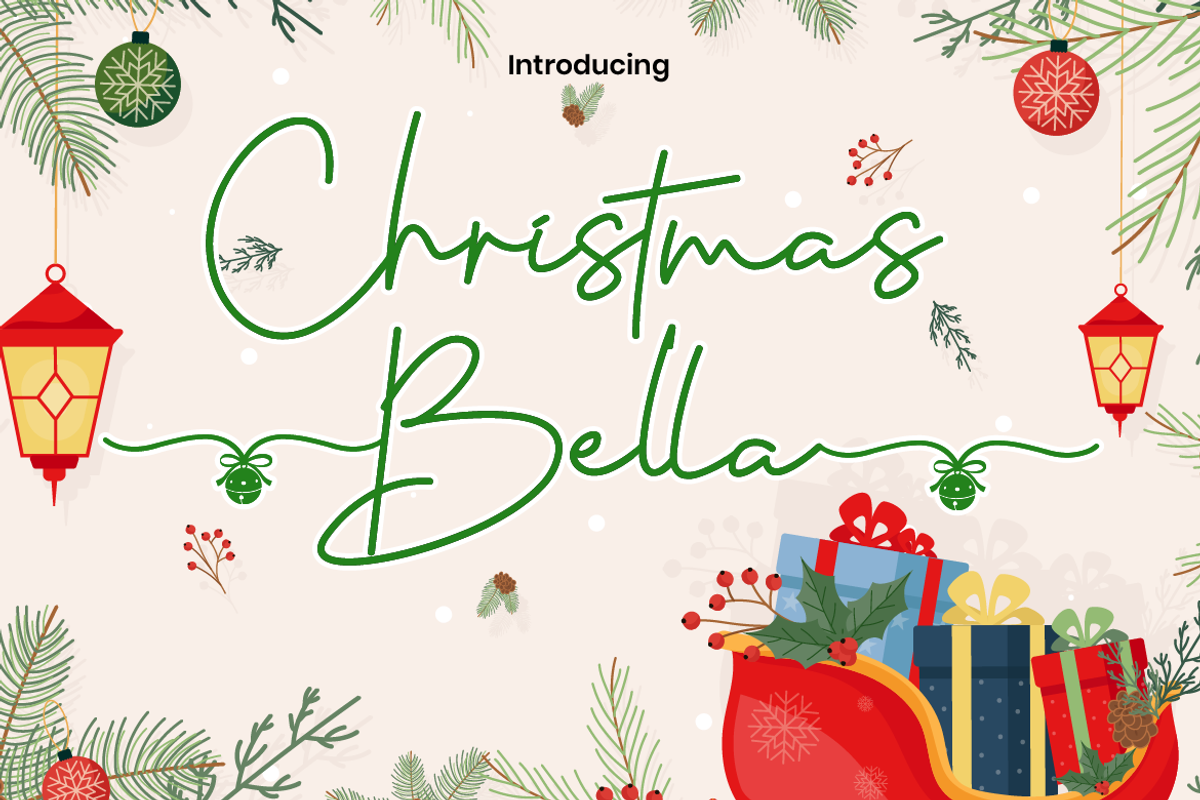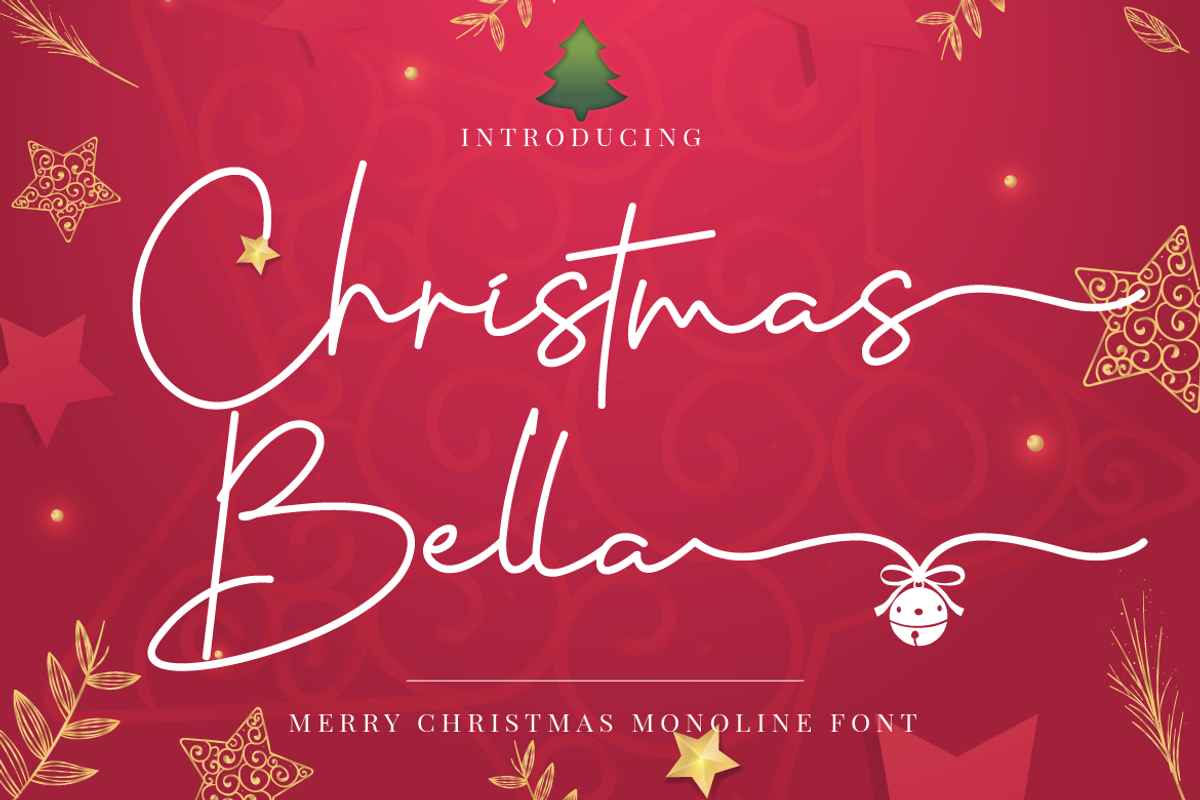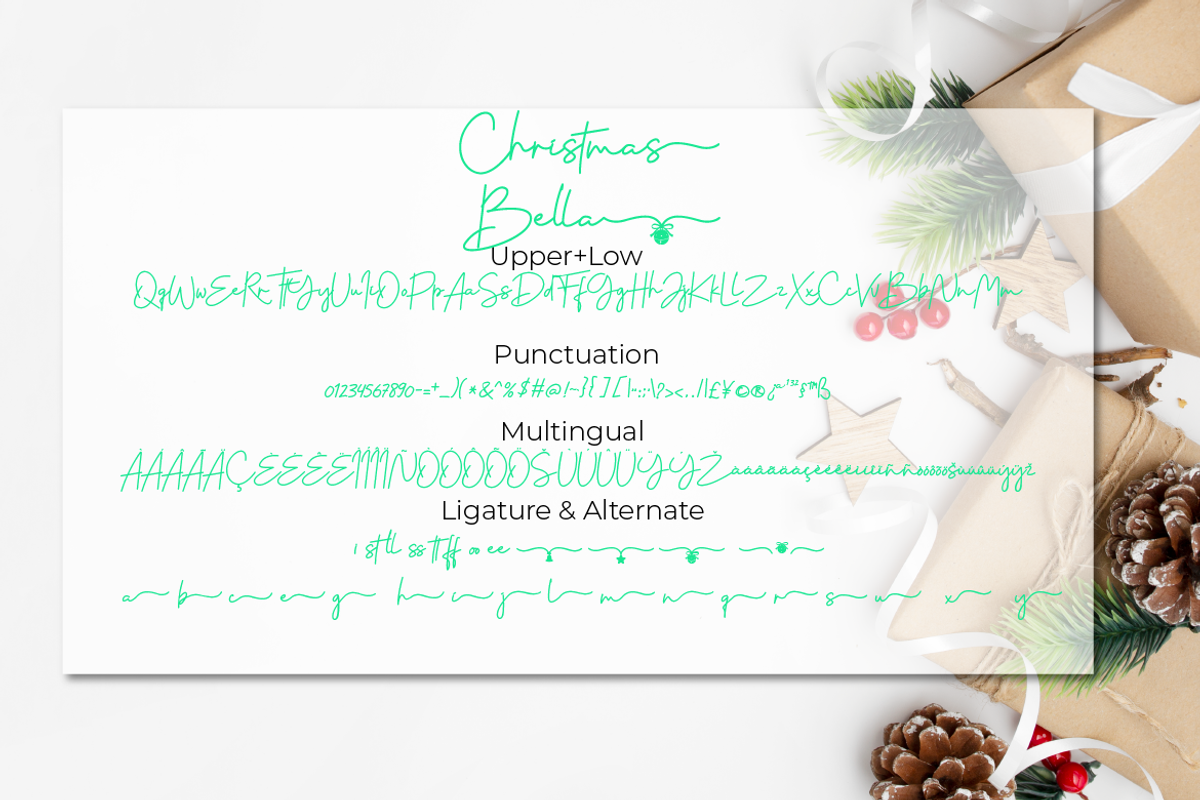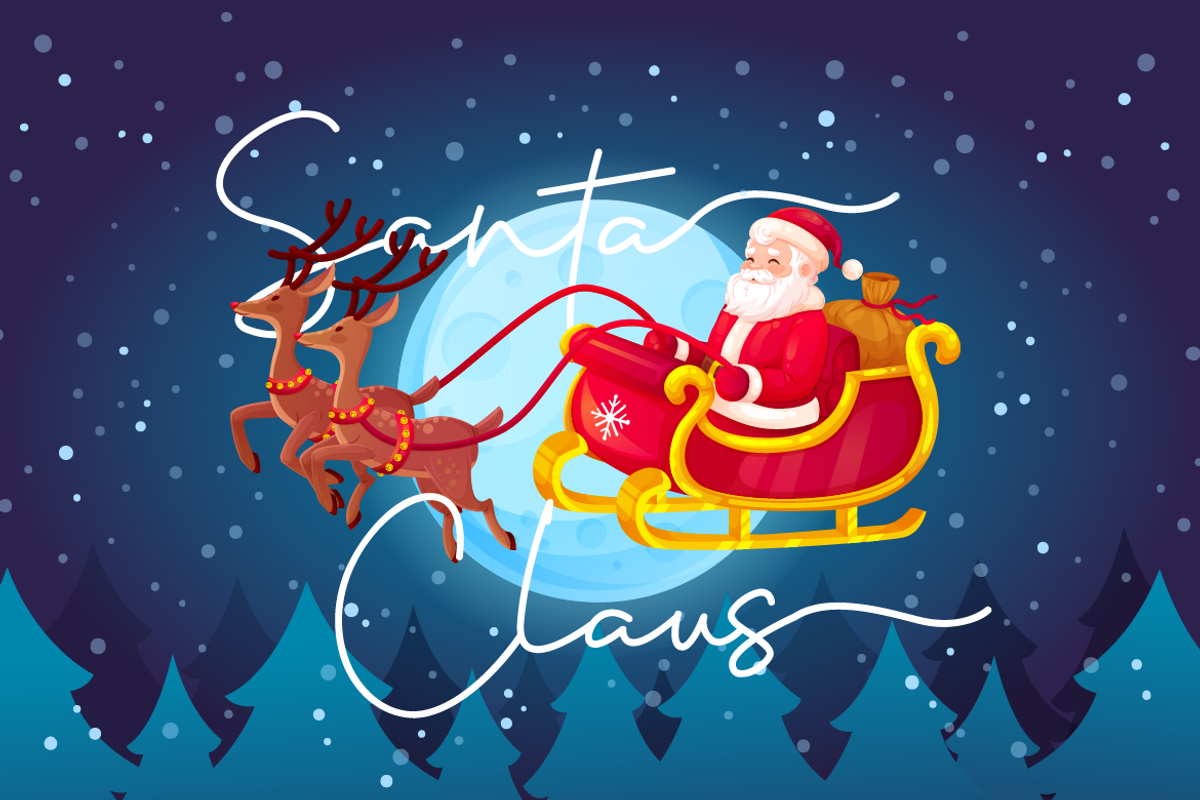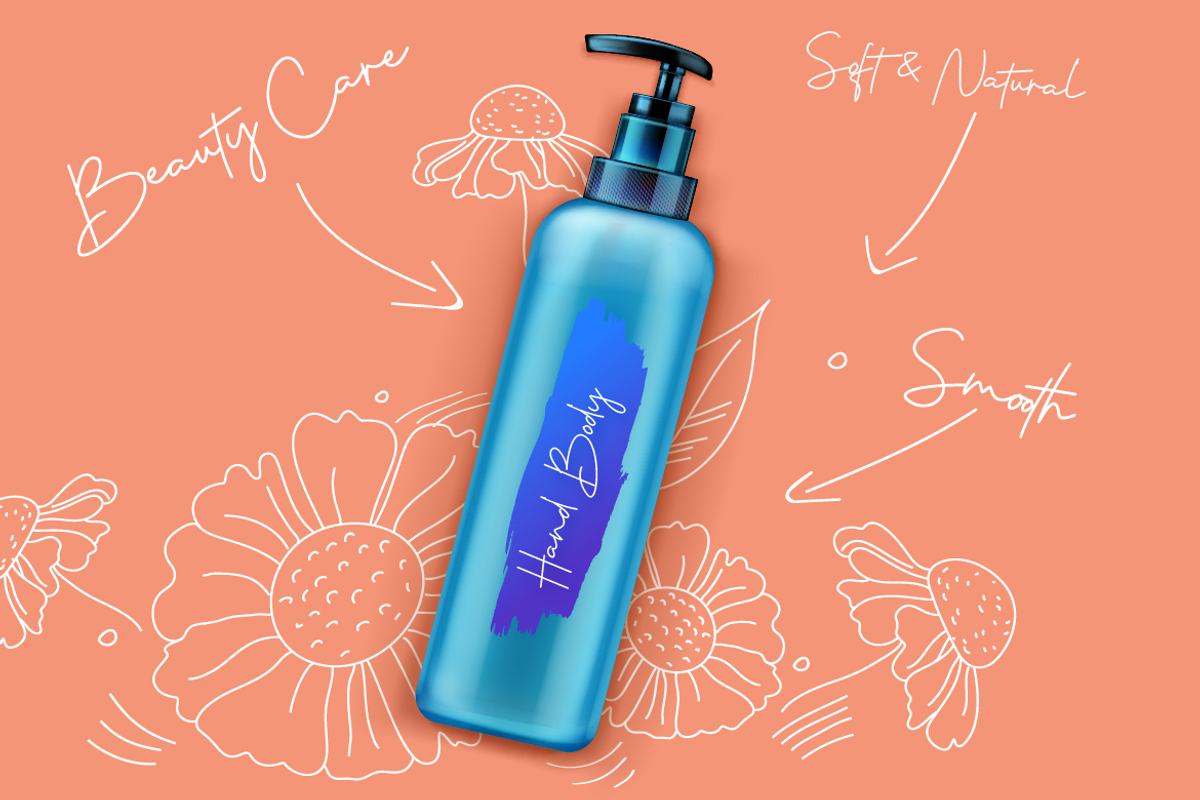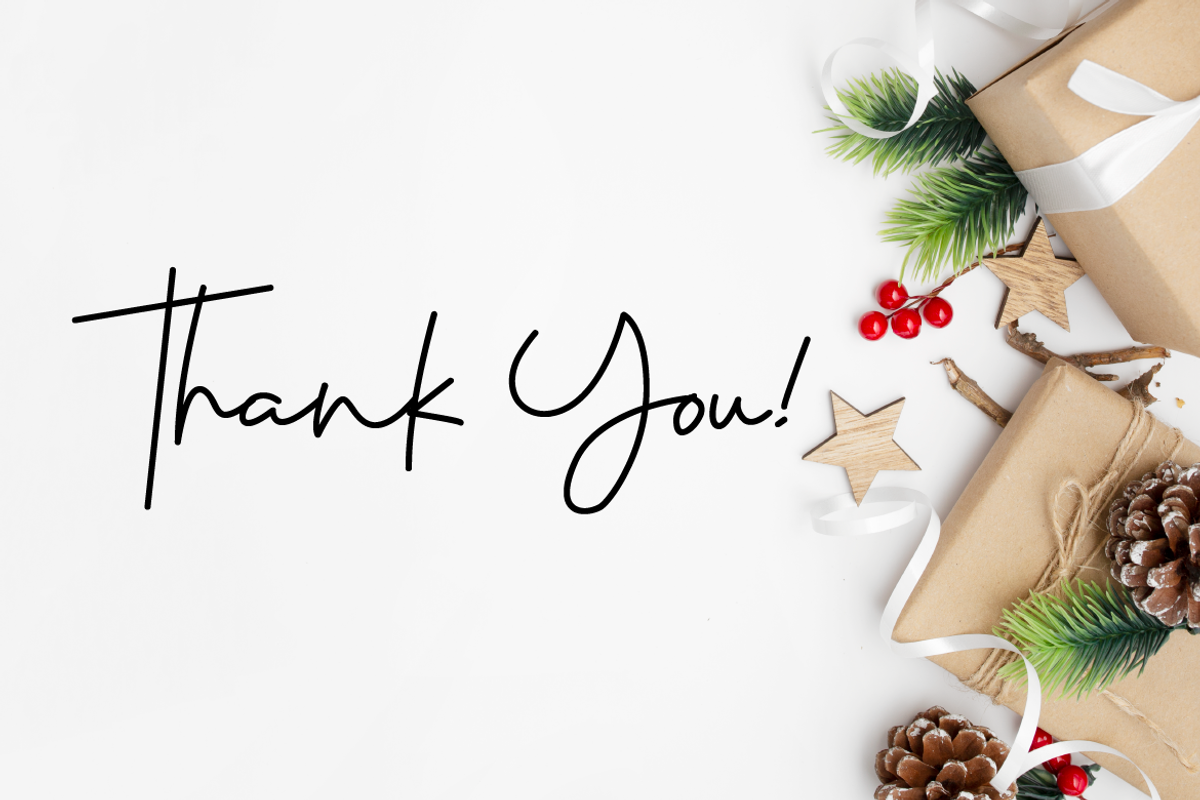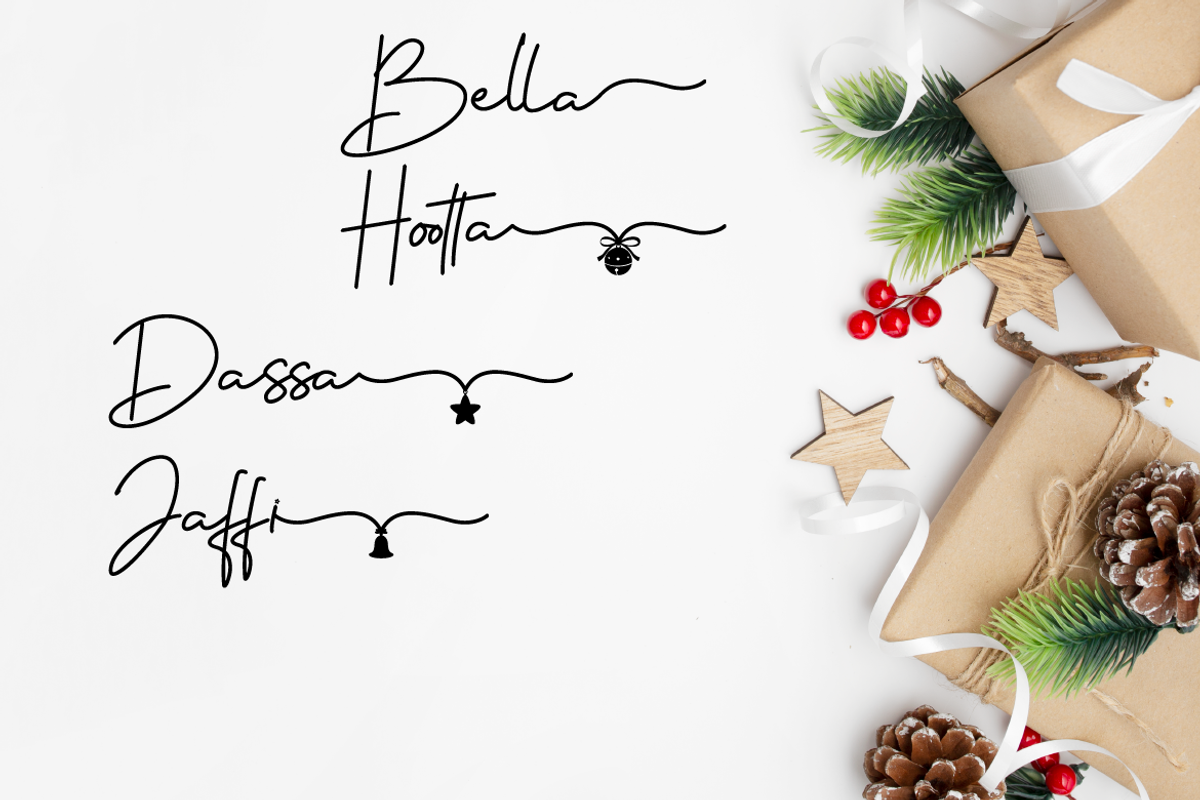
Christmas Bella Script Monoline
Christmas Bella is a monoline script font with delicate lines to add a personal touch, plus the extra special Christmas characters will be the perfect addition to your festive designs. Christmas Bella is PUA encoded which means you can access all of the glyphs and swashes with ease!